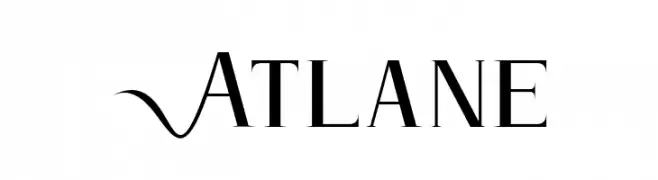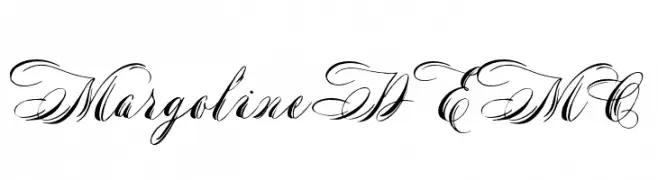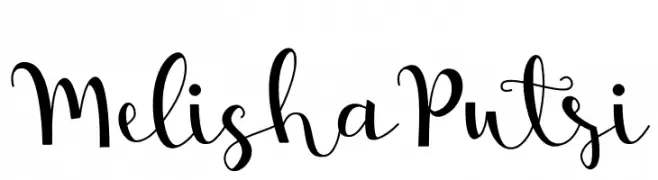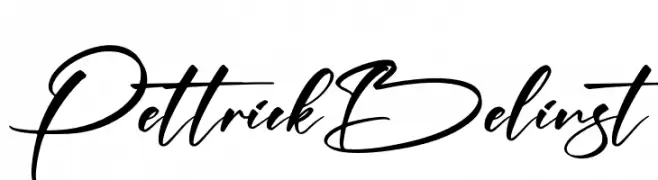
A modern, cursive font with elegant, flowing letterforms and decorative swashes.
A playful and elegant script font with decorative swashes and modern flair.
A dynamic and elegant script font with fluid, cursive strokes and sophisticated swashes.
An elegant, flowing script font with sophisticated loops and swashes.
A cursive, calligraphic font with elegant loops and swashes.
An elegant script font with flowing, cursive style and intricate swashes.
An elegant and flowing script font with intricate swashes and flourishes.
An elegant script font with intricate swashes and flowing lines.
An elegant script font with flowing, intricate loops and swashes.
A decorative serif font with elegant swashes and modern flair.